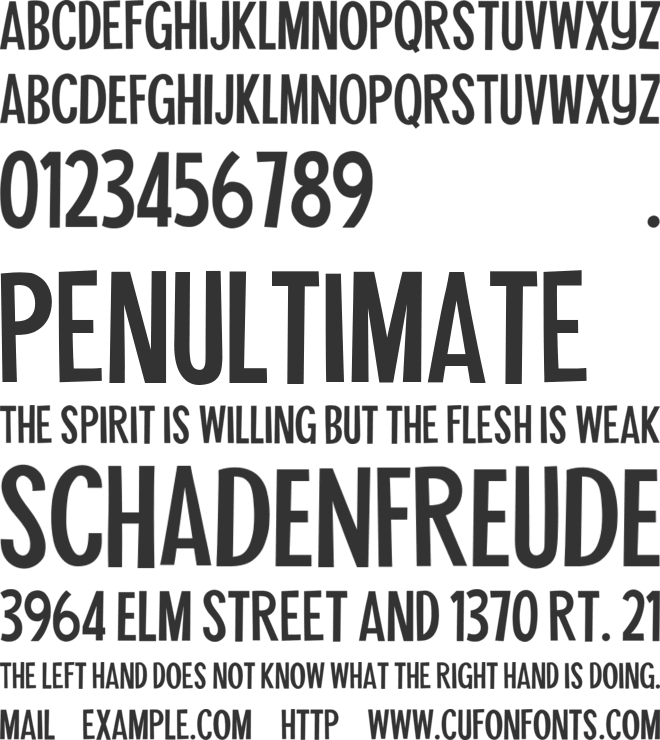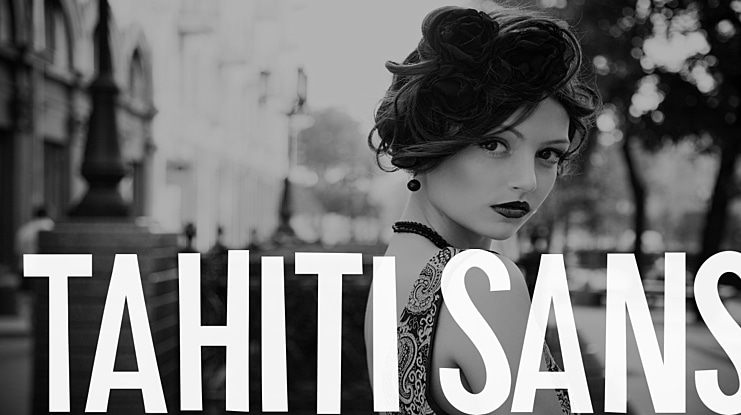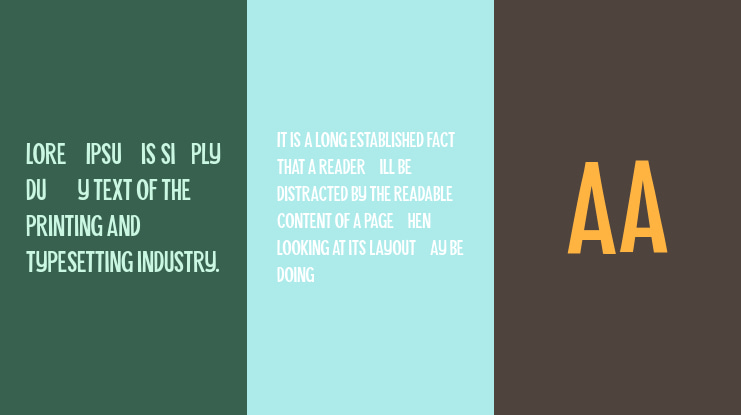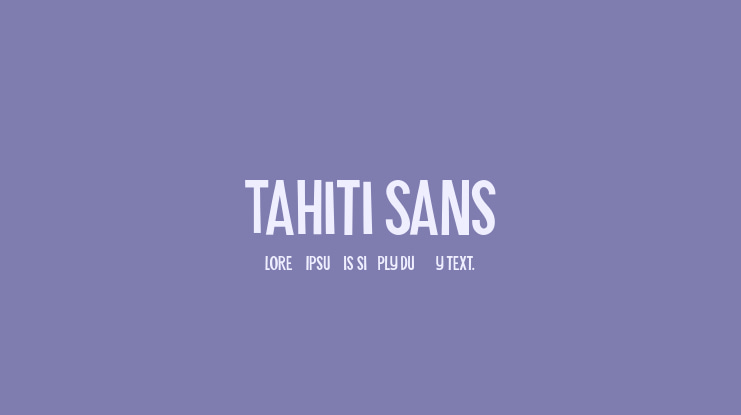
Designed by Dennis Ludlow
Tahiti Sans is a lively display sans font available in two versions. It combines the characteristics of a uniform font with a touch of playfulness. The letterforms have minimal variations and random angles, giving them a unique appearance. The font is tall, making it easy to fit text into tight spaces. The characters are slightly jumbled and misaligned with varying spacing, giving the font a childlike charm. Tahiti Sans is perfect for projects that require clean and legible text with a hint of fun, such as youth sports, social media, or advertising campaigns.